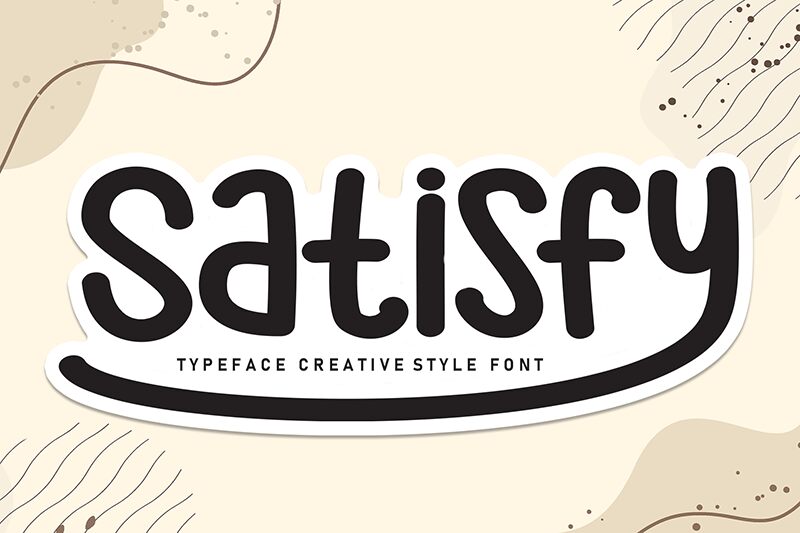
Satisfy
Satisfy font is a retro-inspired handwritten font designed by Andi Moz. Its casual, rounded, and friendly appearance makes it a cohesive addition to any design seeking a warm touch. Enjoy this free handwritten font’s authentic style while pairing it with other fonts to see how well it works with body texts, or use its characters for retro modern designs.
Ideal for posters, the special tone of Satisfy can enhance your greeting cards and invitations. Use its letters for novel covers and artwork as well as notebooks/exercise books/personal journals titles that would fit both writing enthusiasts of all ages and educational bodies.